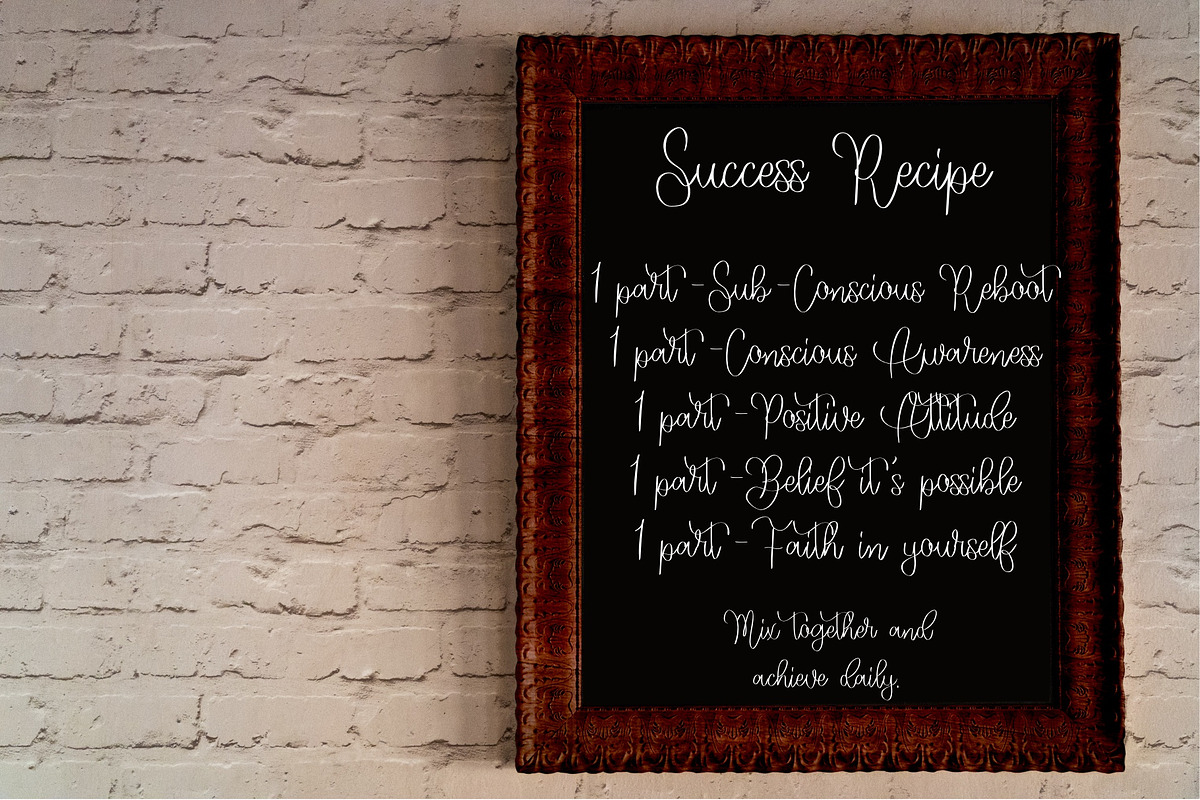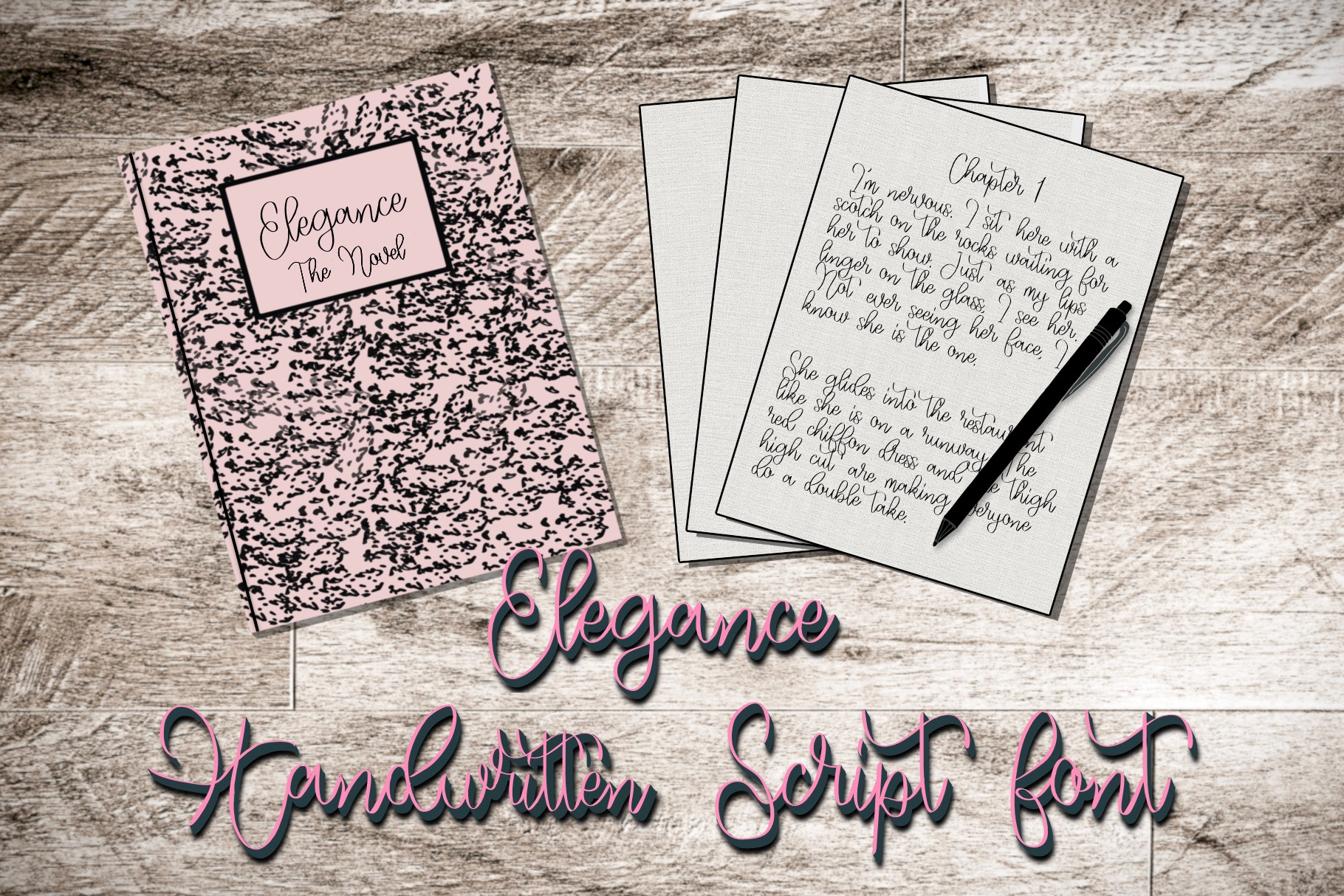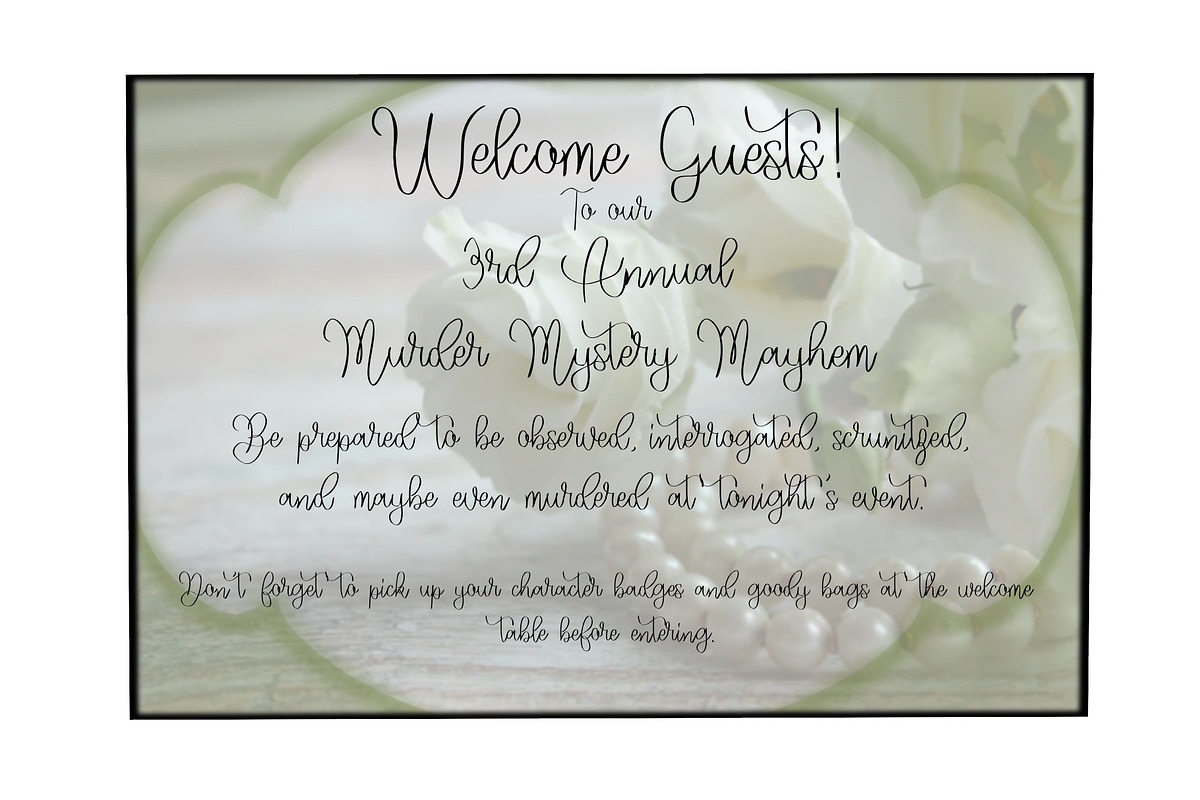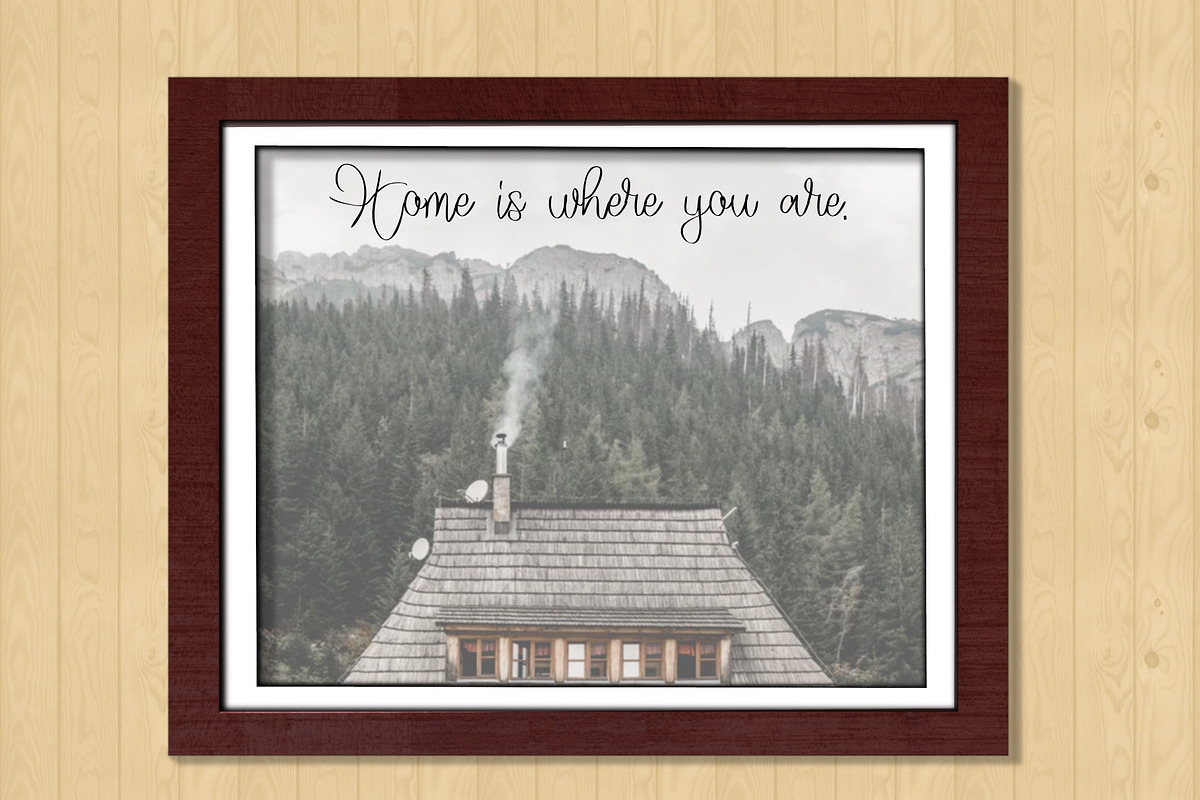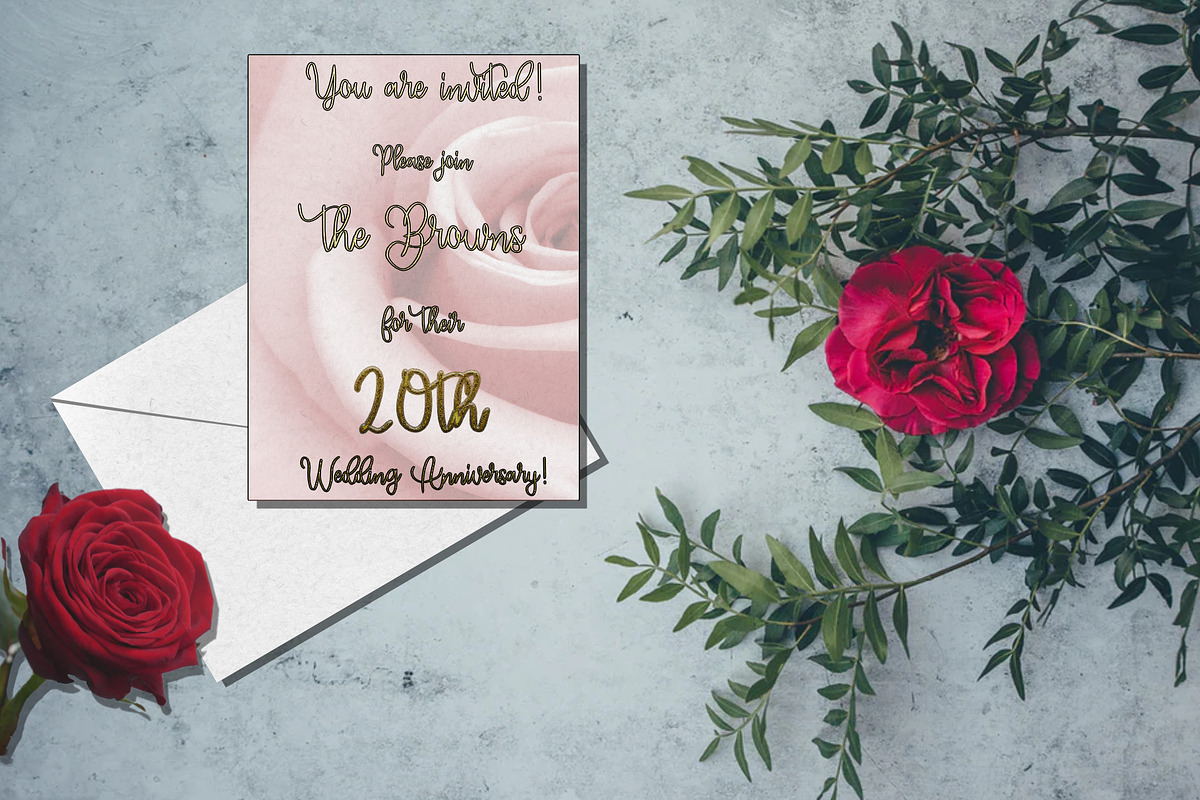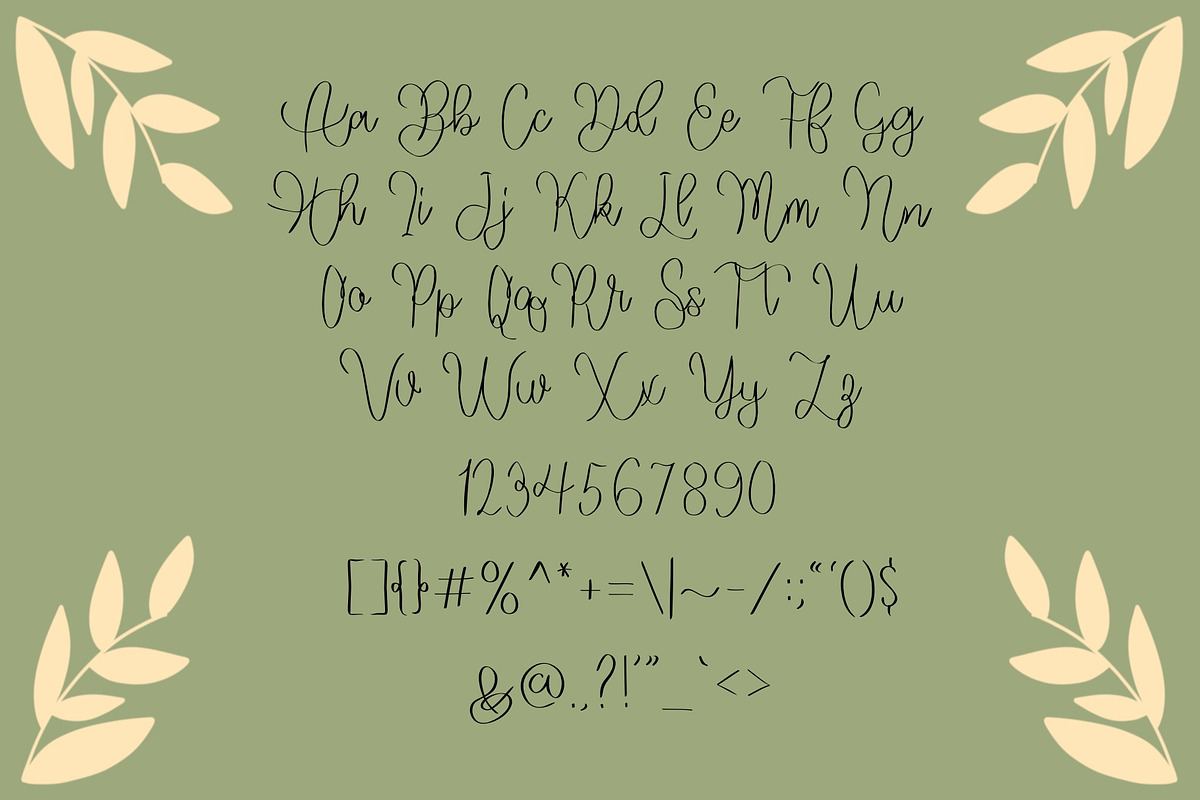
Elegance Handwritten Font
Elegance is a handwritten script font. I love how easily it can be read but still look handwriting.
The name suits the font perfectly as it can be used in greeting cards, invitations, journals, planners, wall decor, welcome signs etc…